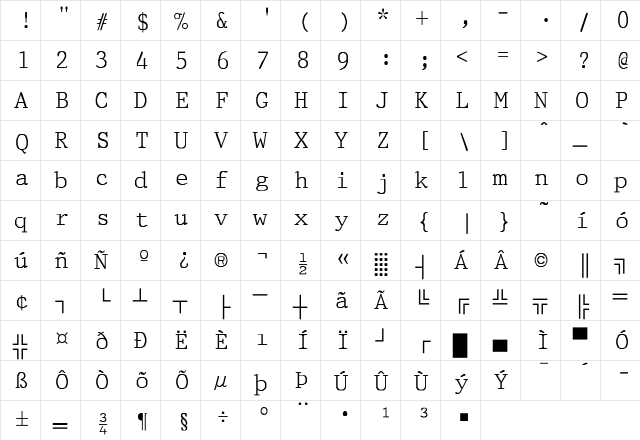
BATTERSEA Regular Regular
Design Context for BATTERSEA Regular Typeface
BATTERSEA Regular takes a measured approach to typography — its balanced proportions and neutral character make it a reliable workhorse for both digital and print work.